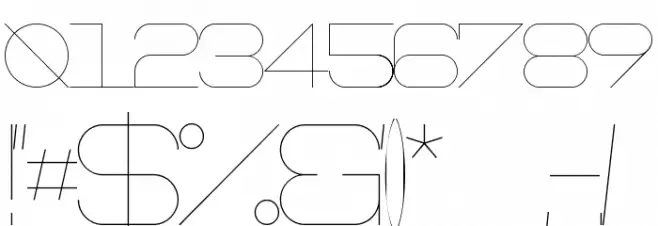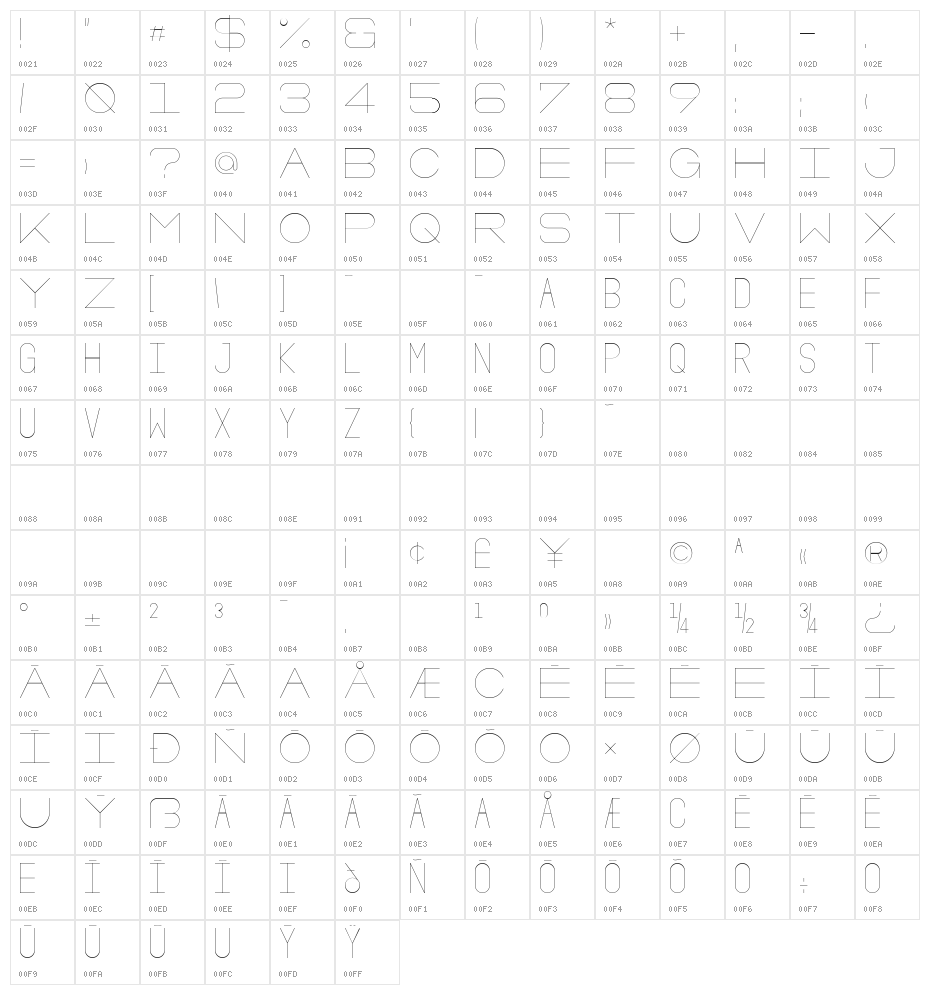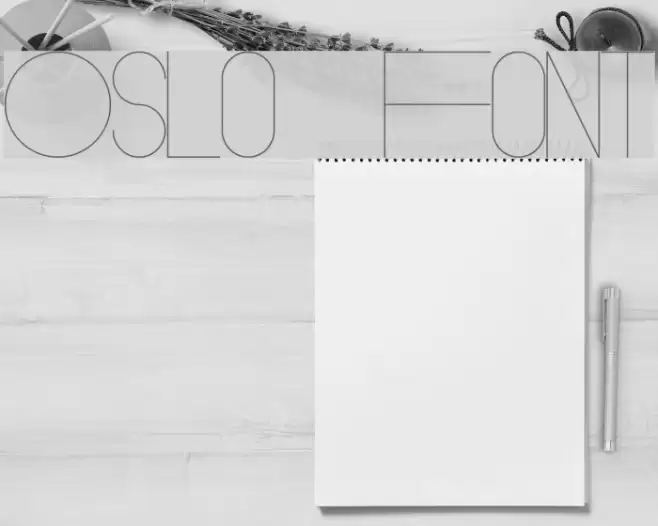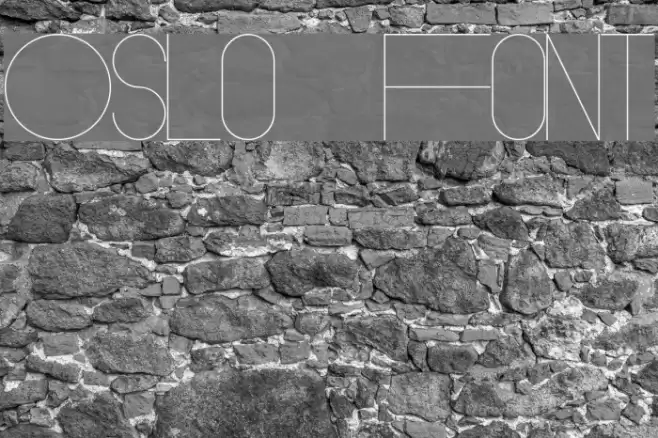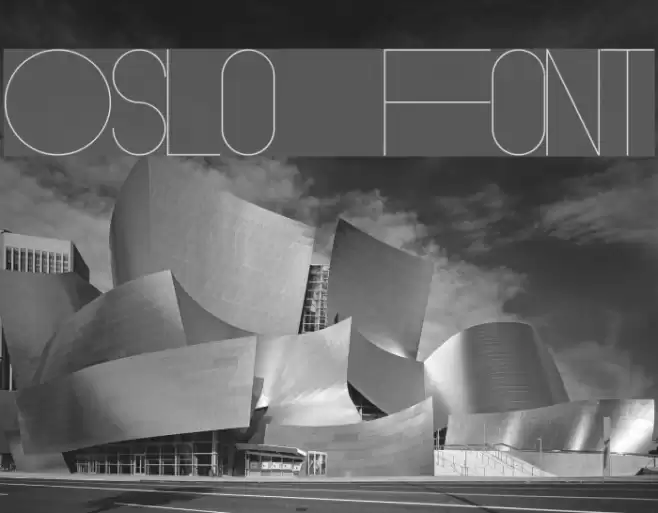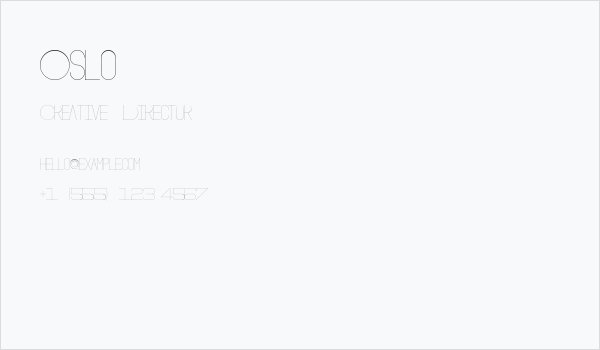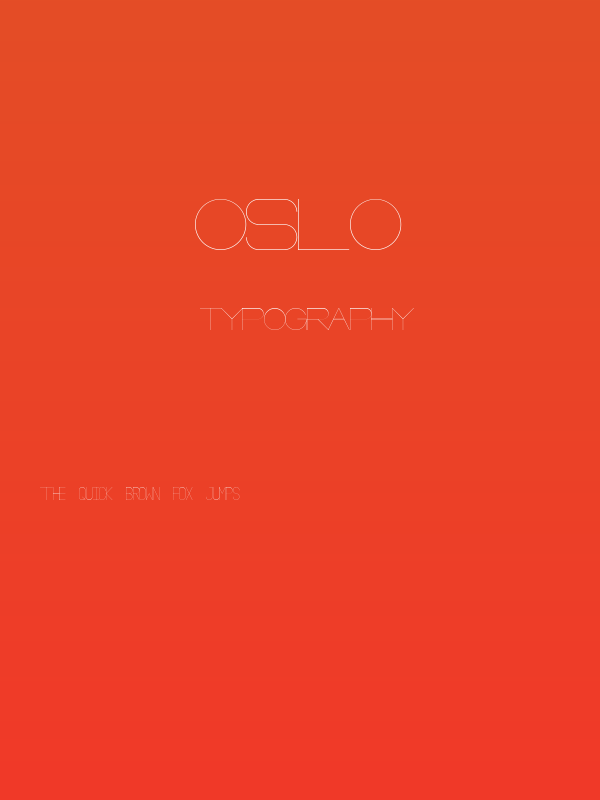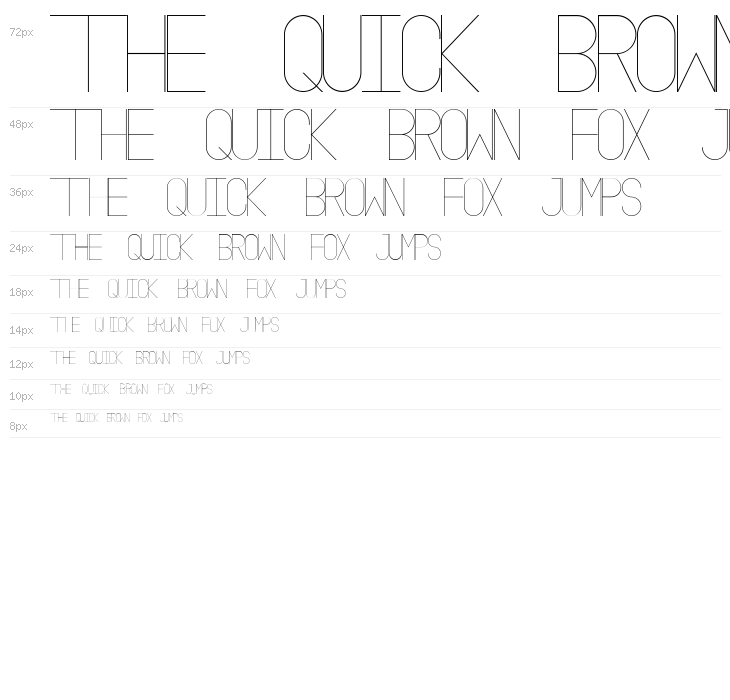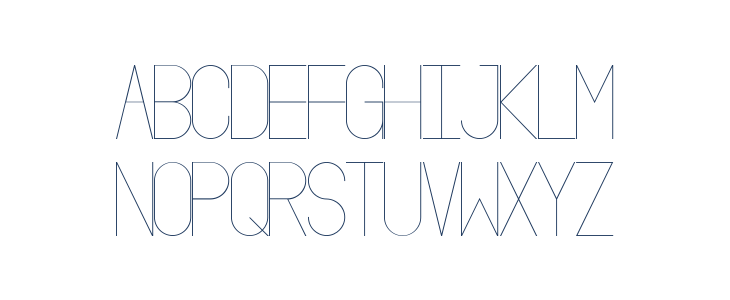
Oslo Font
Oslo Description
This font features a sleek, geometric design with a modern and minimalist aesthetic. The characters are constructed with thin, uniform lines, creating a sense of elegance and sophistication. The uppercase letters are particularly striking, with sharp angles and clean lines that convey a sense of precision. The numerals and special characters maintain the same geometric style, ensuring consistency across all elements. This font's open and airy design makes it highly legible, even at smaller sizes, while its unique style adds a touch of modernity to any project.
| Proposed Projects | Ideal for modern branding, tech-related projects, minimalist posters, and contemporary web design. |